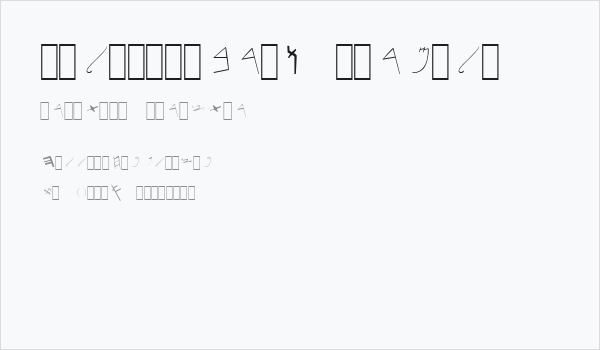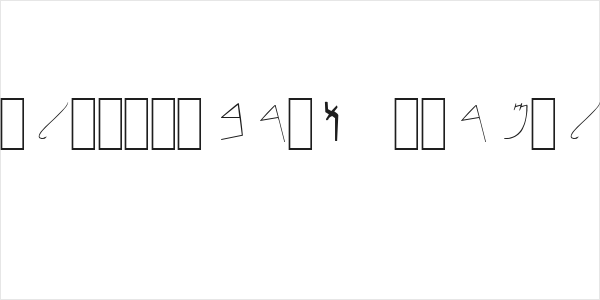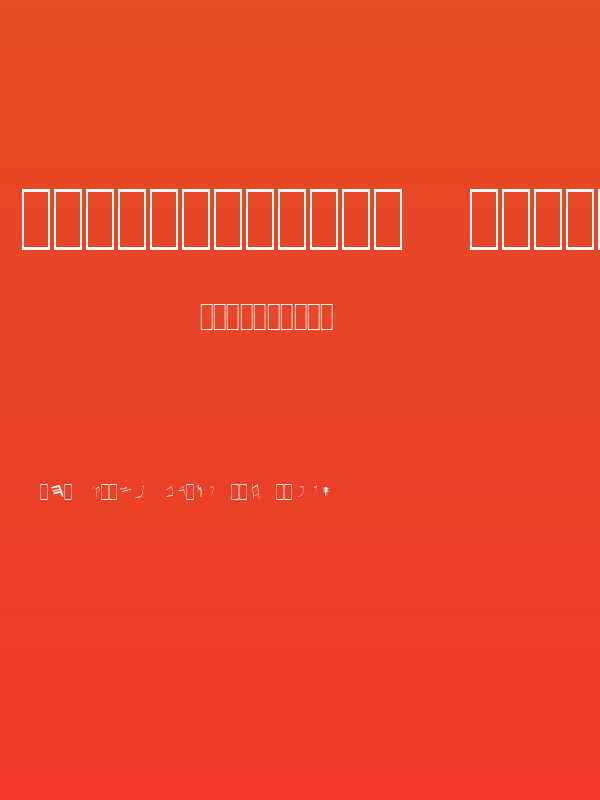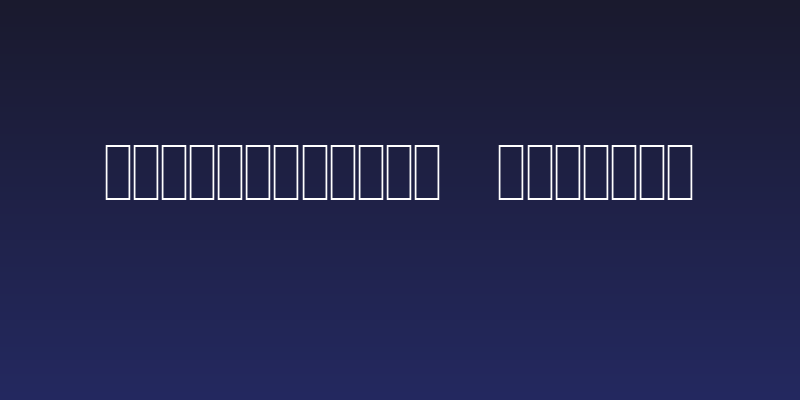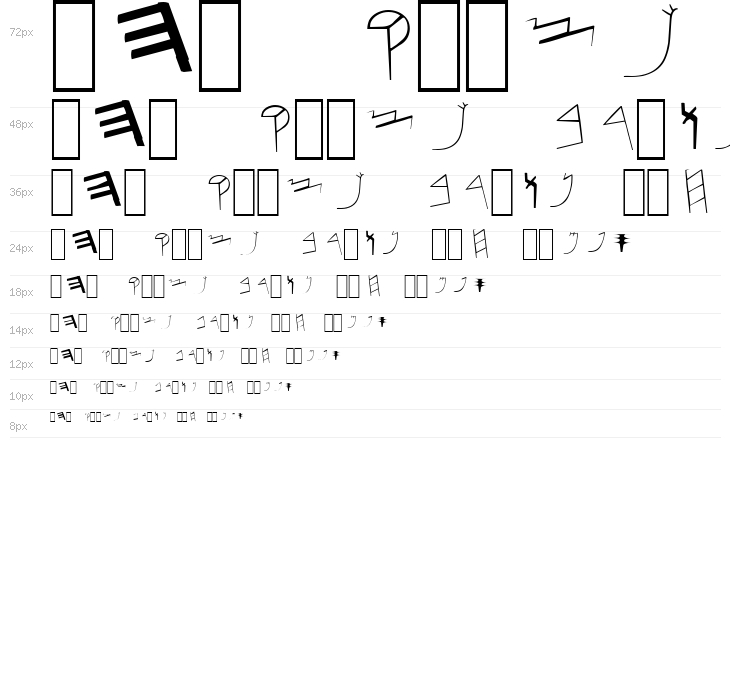
Paleo-Hebrew NormalA Font
Paleo-Hebrew NormalA Description
This font is inspired by ancient scripts, featuring a unique and historical aesthetic. The characters are crafted with a blend of angular and curved lines, reminiscent of early writing systems. Each letter is distinct, with a primitive yet artistic flair that captures the essence of ancient inscriptions. The font's design is both intriguing and visually striking, making it suitable for projects that aim to convey a sense of antiquity or cultural heritage. Its unconventional style sets it apart from modern typefaces, offering a glimpse into the past through its carefully constructed forms.
| Use Case | Logos, Headlines, Themed designs |
| Proposed Projects | Ideal for historical documentaries, cultural exhibitions, educational materials on ancient history, and themed graphic designs. |